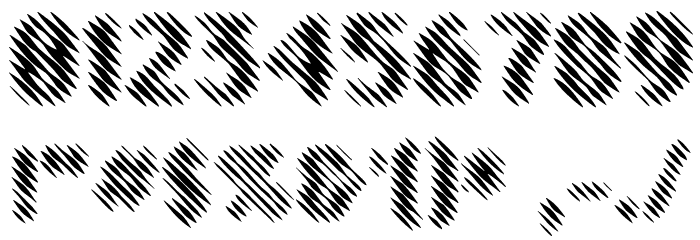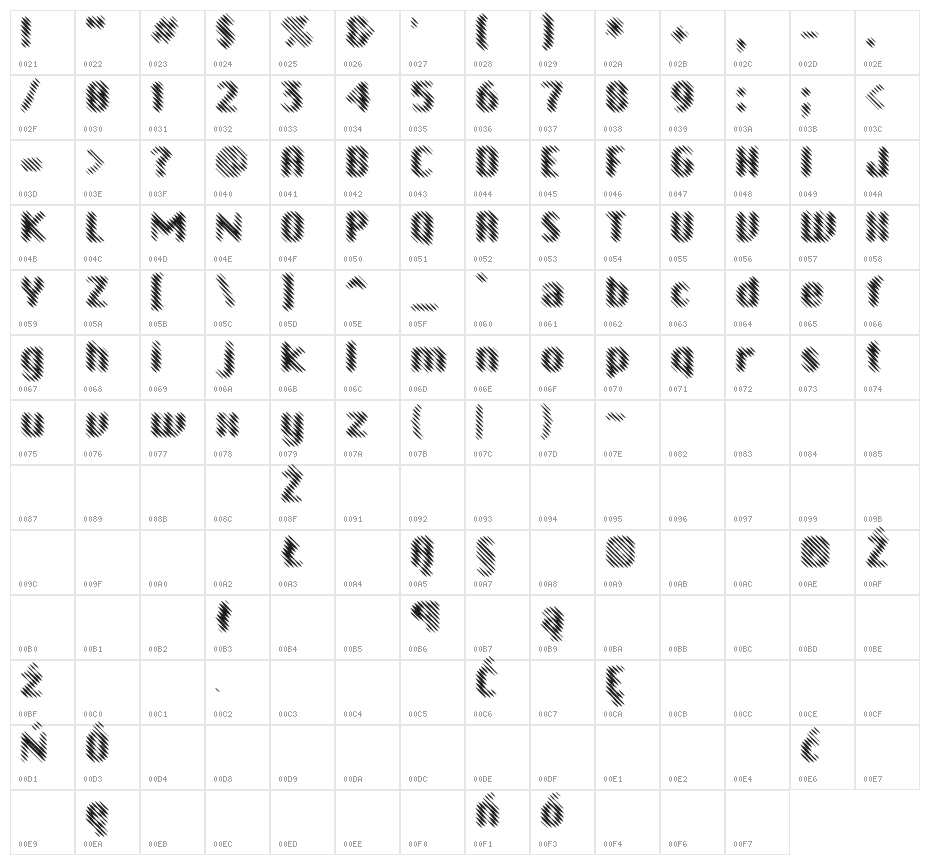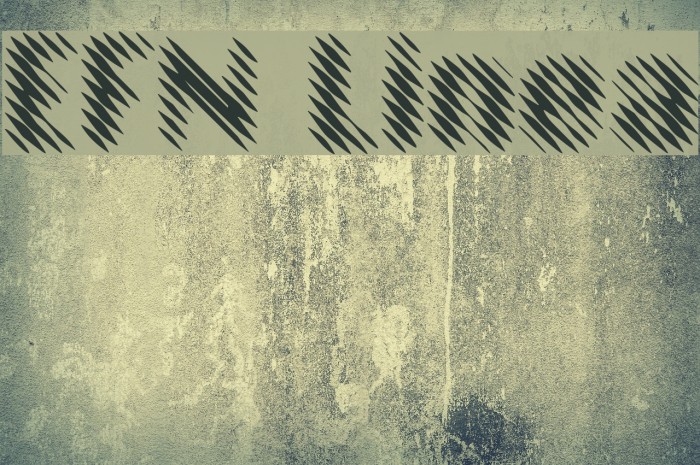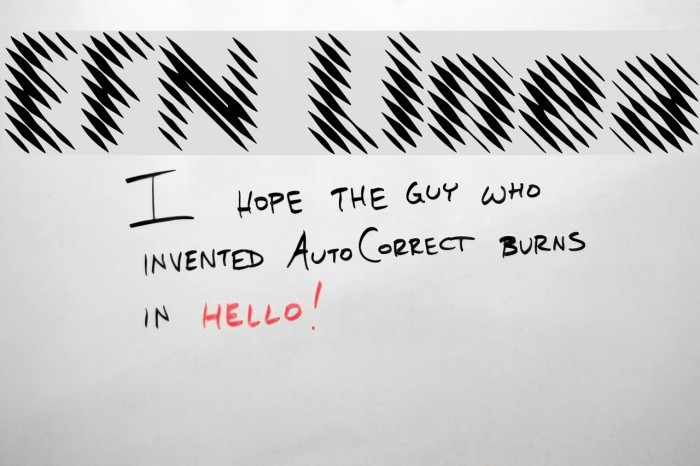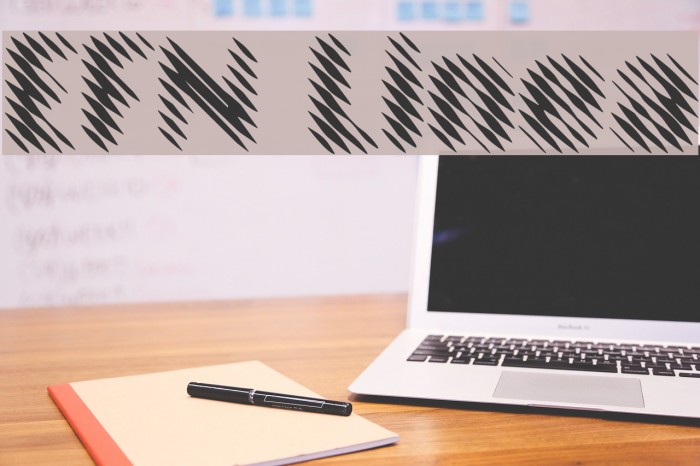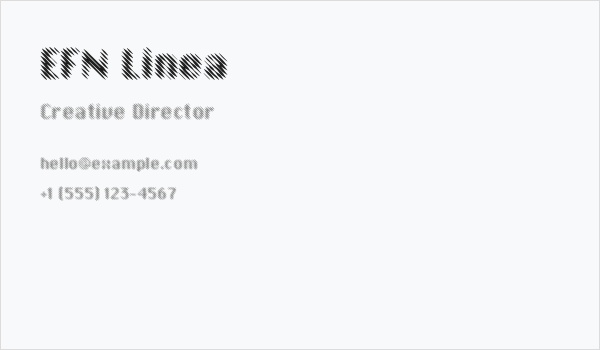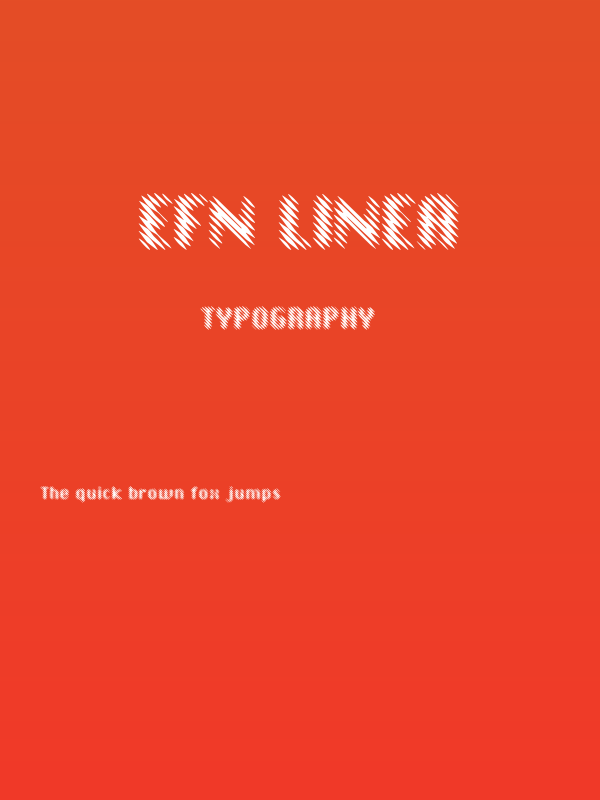
EFN Linea Font
EFN Linea Description
This font features a unique and striking design characterized by diagonal lines cutting through each character, creating a dynamic and textured appearance. The uppercase and lowercase letters maintain a consistent style, with bold, angular shapes that are both modern and eye-catching. Numbers and special characters follow the same pattern, ensuring a cohesive look across all elements. The font's distinct style makes it suitable for projects that require a bold statement or a creative touch.
| Proposed Projects | Ideal for branding, poster design, album covers, and any project needing a bold, artistic flair. |